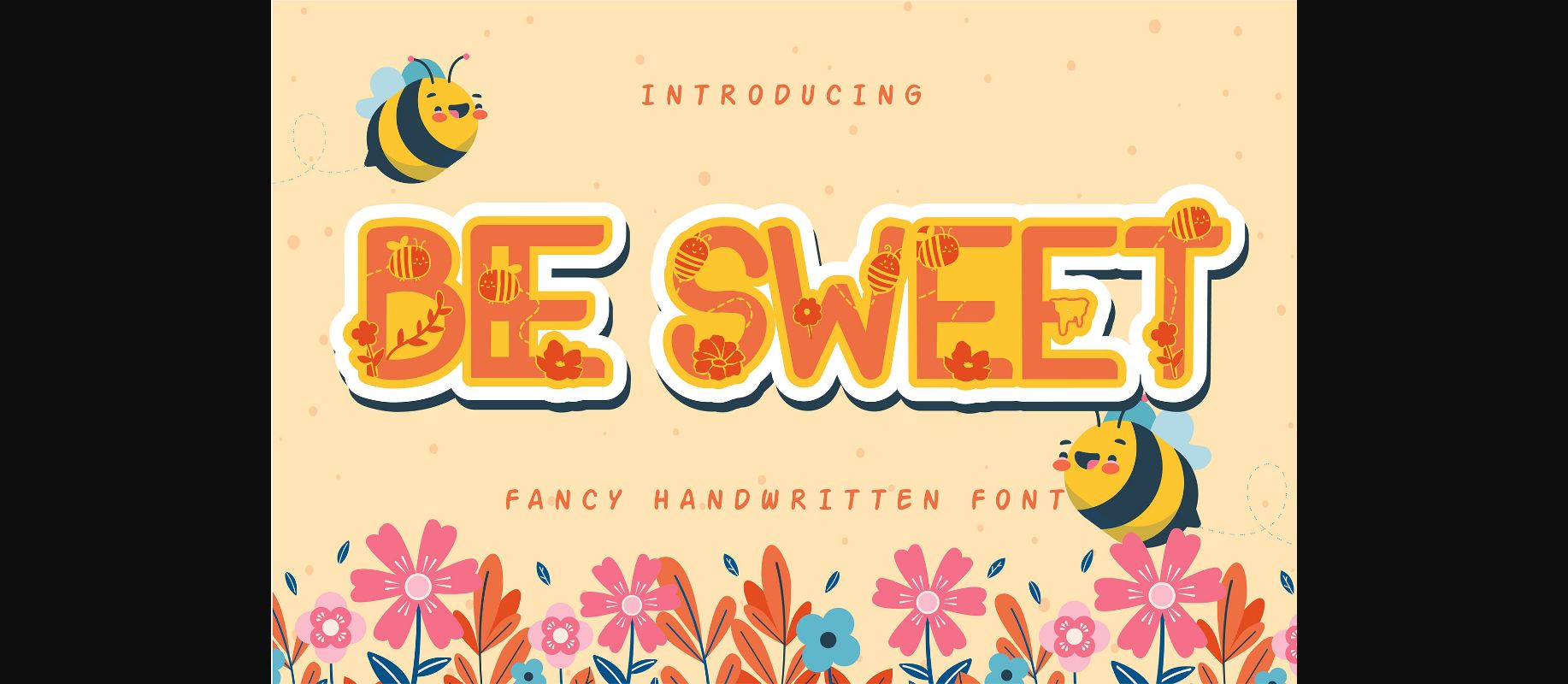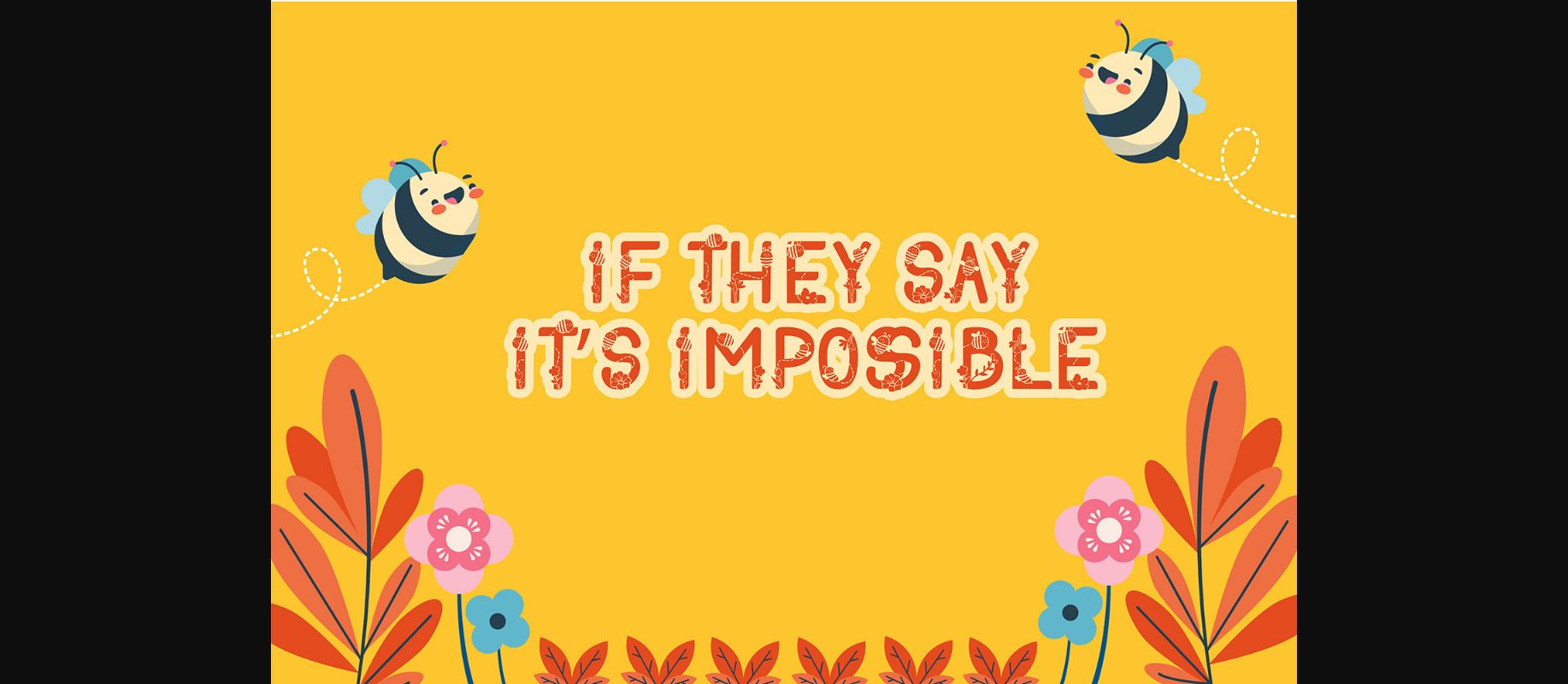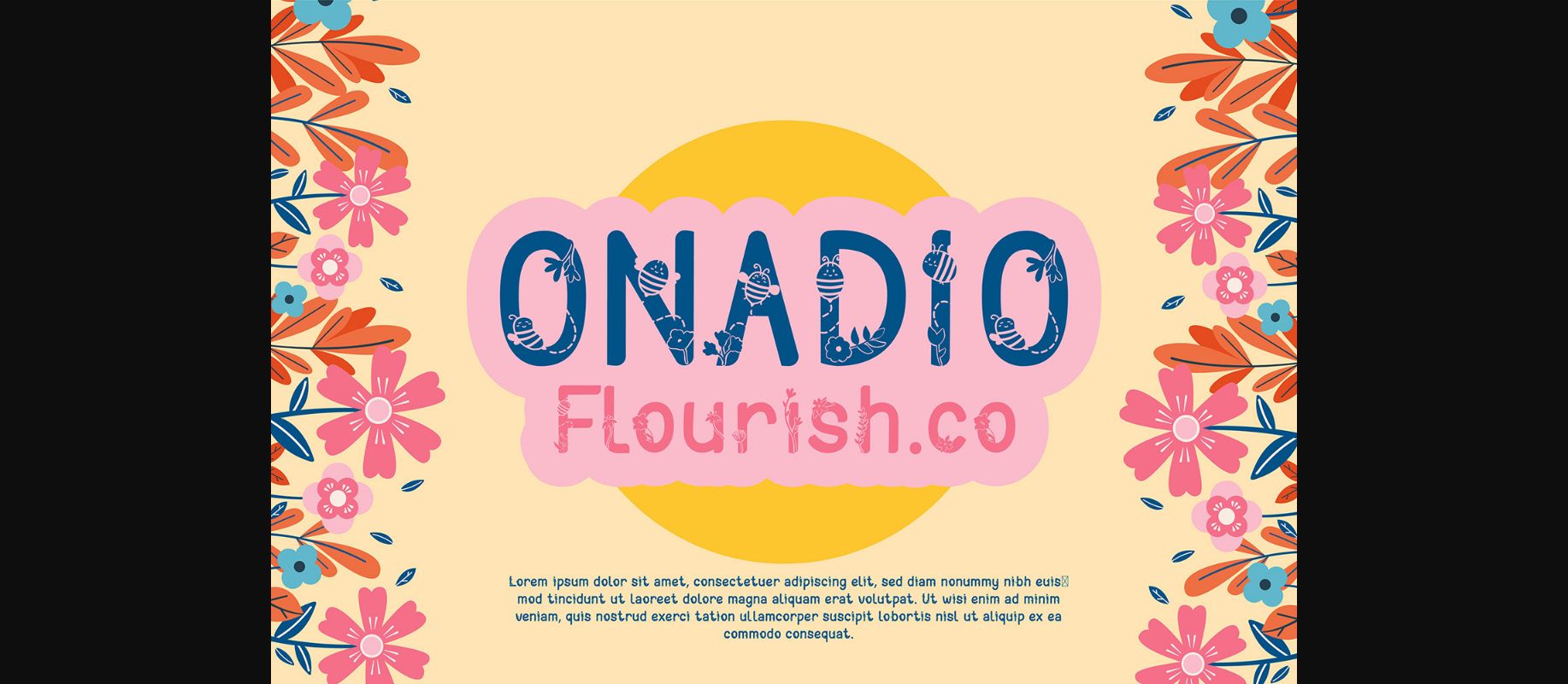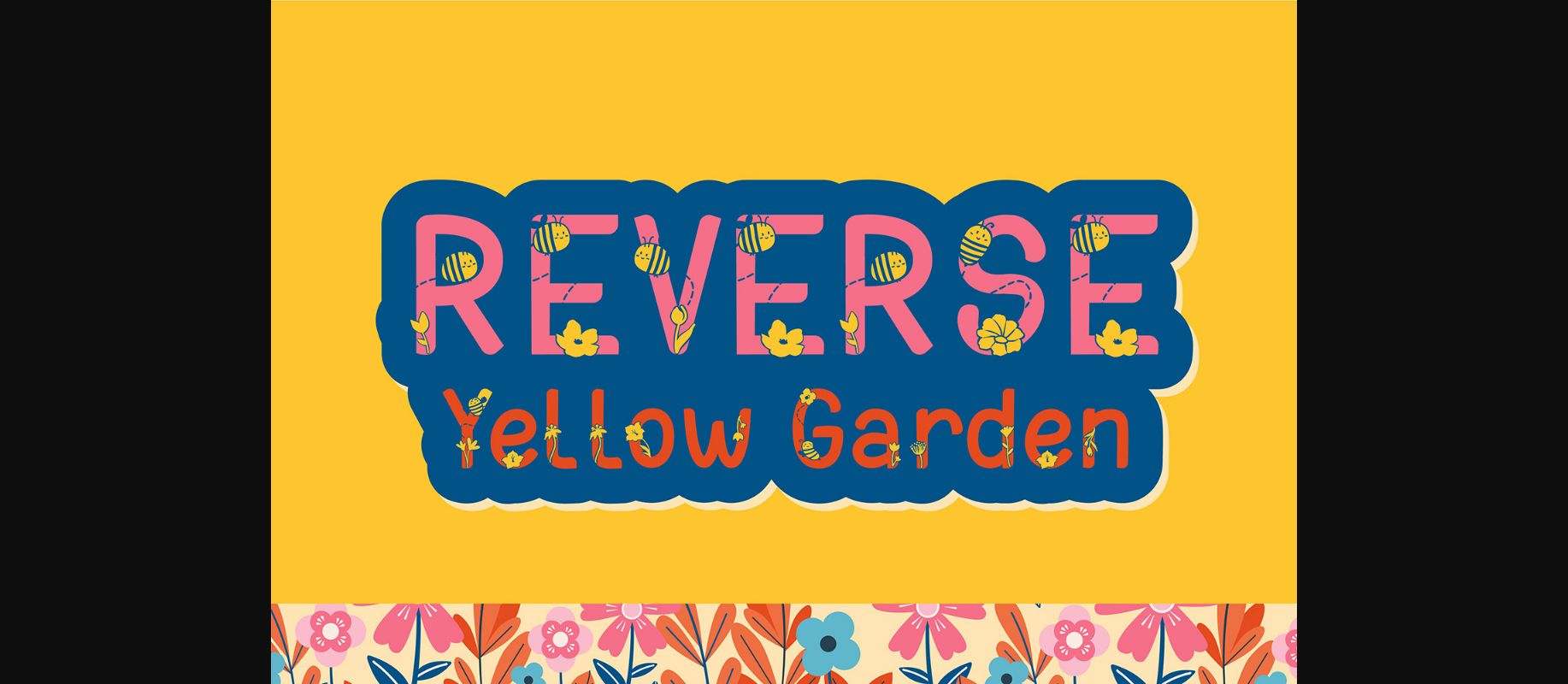
About Bee Sweet Font
**Bee Sweet | Fancy Decorative font** with a calligraphy style. It looks beautiful on invitations, greeting cards, branding materials, business cards, quotes, posters, and more!